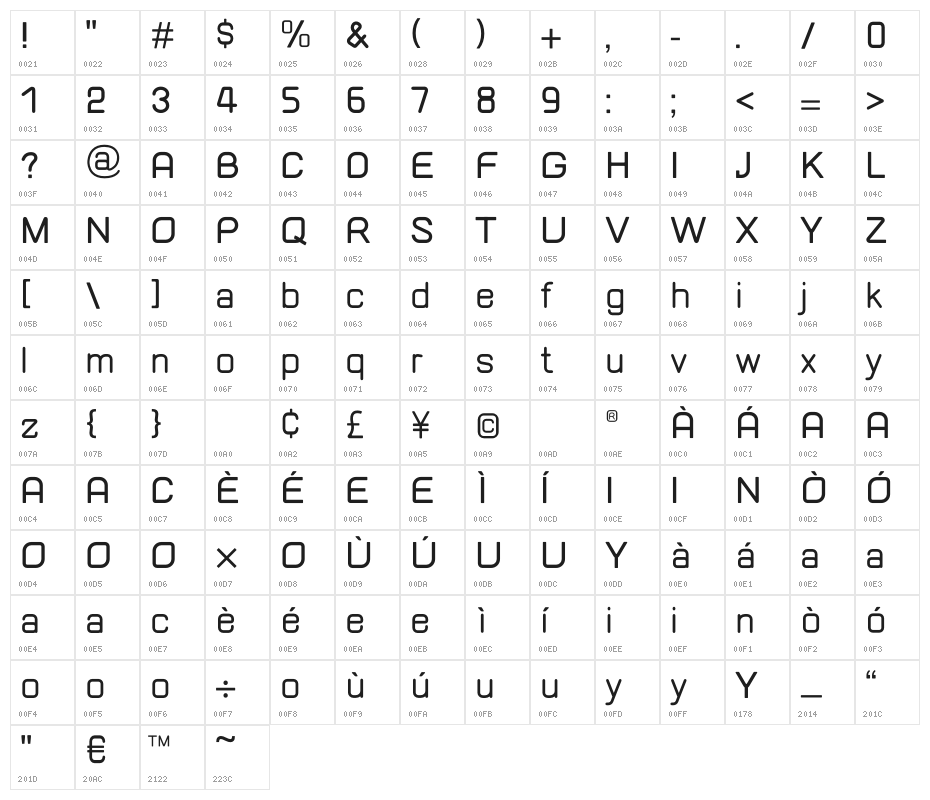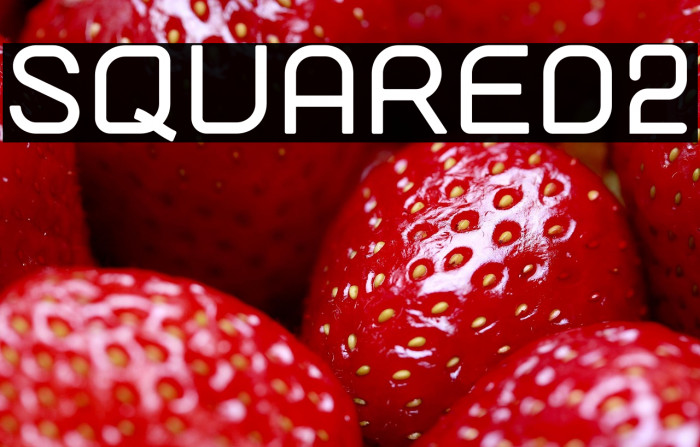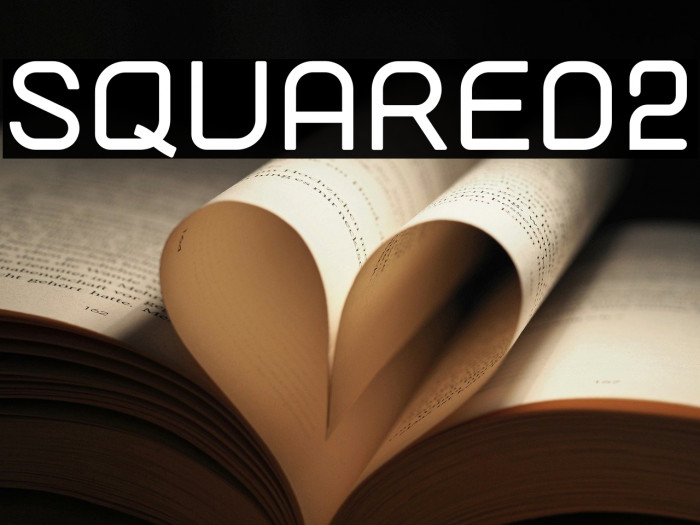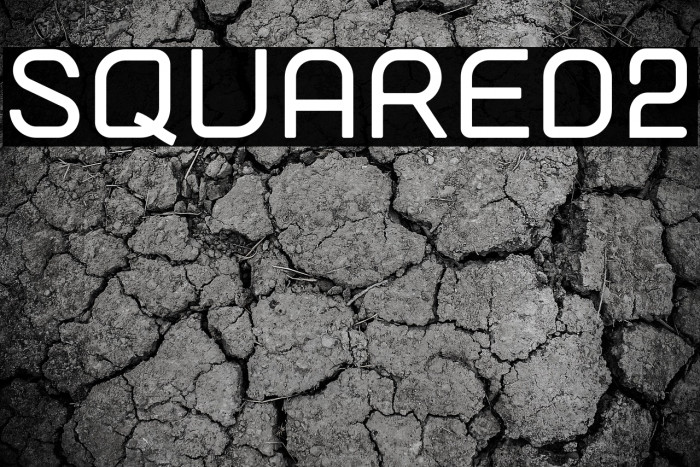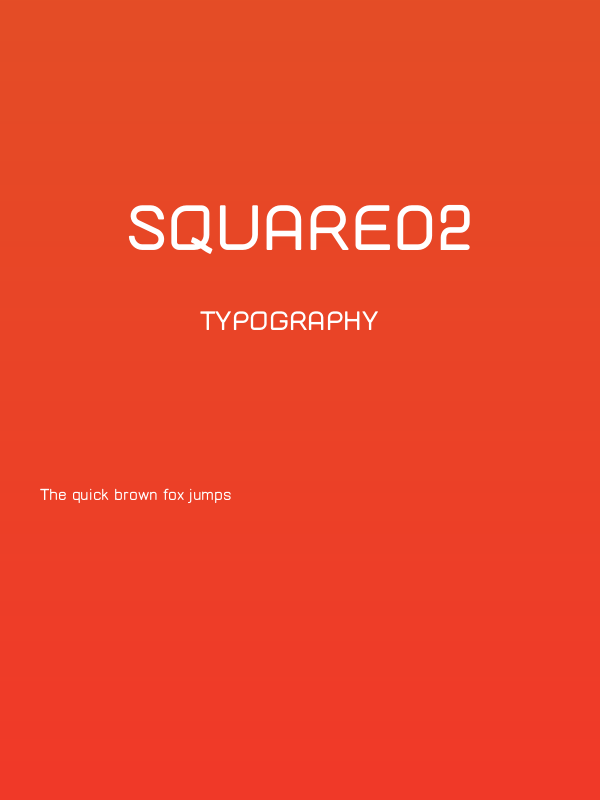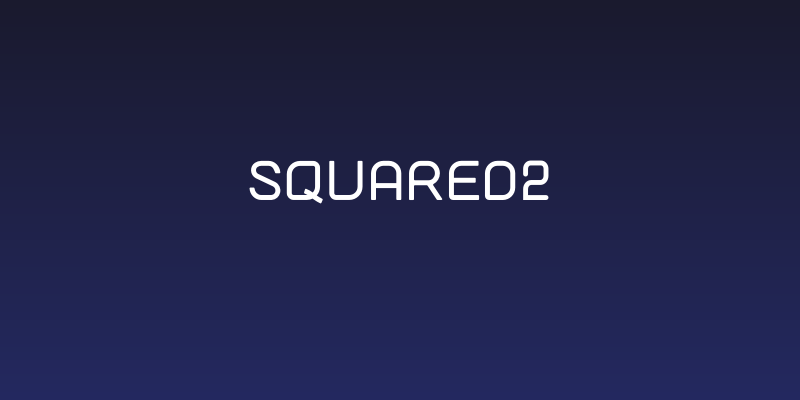
SQUARED2 Font
SQUARED2 Description
This font features a modern, geometric sans-serif style with rounded edges and a clean, minimalistic appearance. The characters are uniform in width, providing a balanced and harmonious look. The uppercase and lowercase letters maintain a consistent height, while the numerals are slightly taller, ensuring readability. The special characters are designed to match the overall aesthetic, with smooth curves and straight lines. This font is versatile, suitable for both digital and print media, and can be used to convey a contemporary and professional tone.
Proposed ProjectsIdeal for branding, web design, corporate materials, and user interfaces.